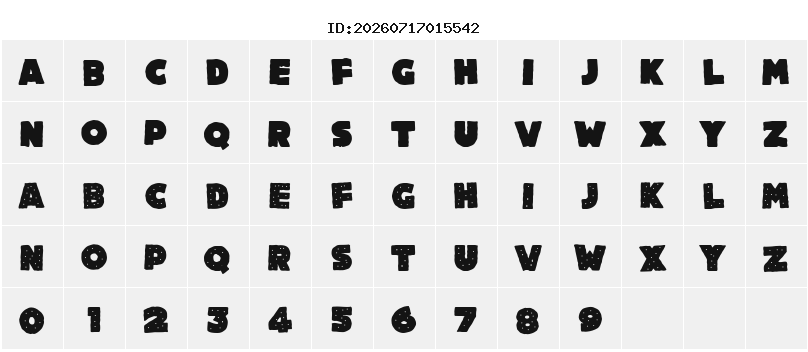
• Font Name: AK Cookies Chocolate
AK Cookies Chocolate.ttf is a modern, elegant sans-serif font designed for ultimate readability and visual harmony. Perfect for branding, headlines, web design, and print materials.